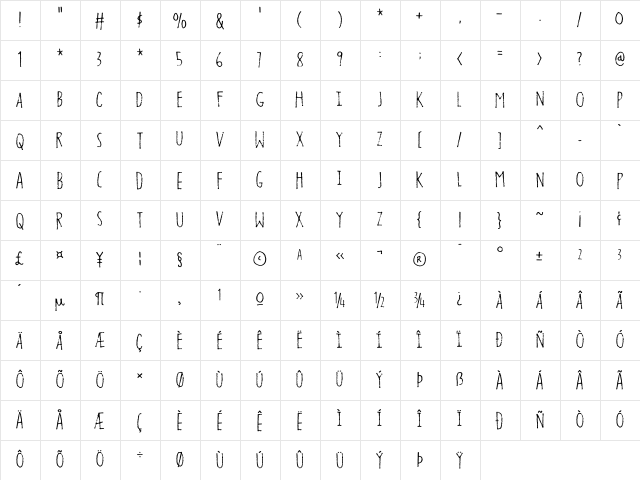
Foolish People DEMO Regular
| Designer | Jakob Fischer / pizzadude.dk |
Design Context for Foolish People DEMO Typeface
Foolish People DEMO is a composed and adaptable typeface that performs quietly and consistently across a wide range of design contexts.